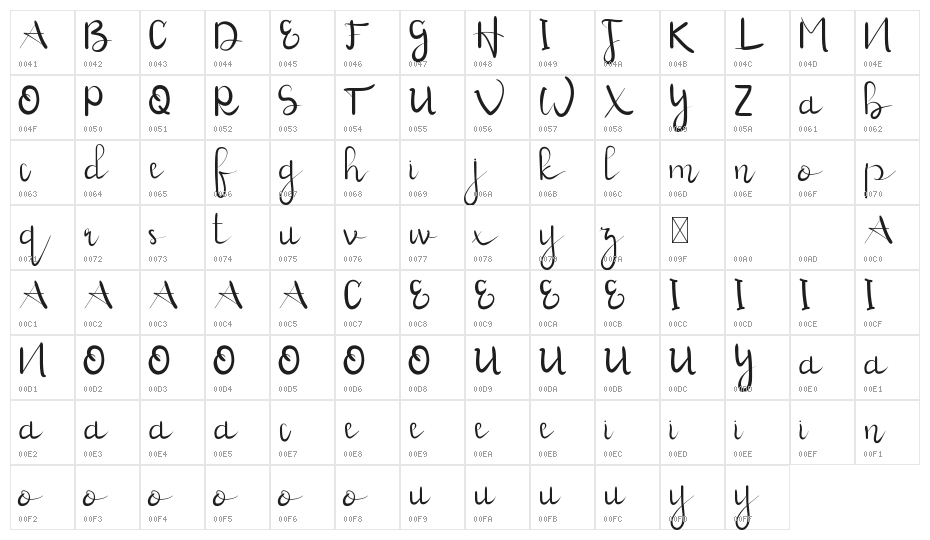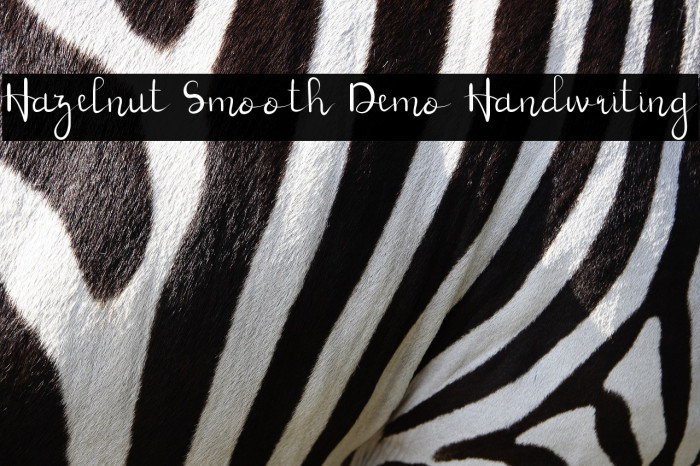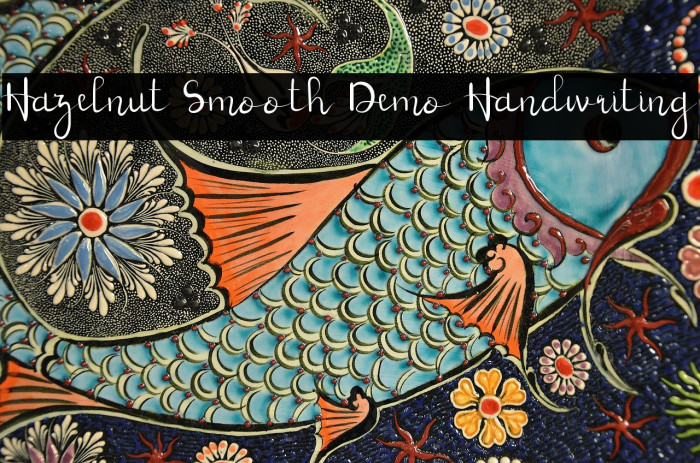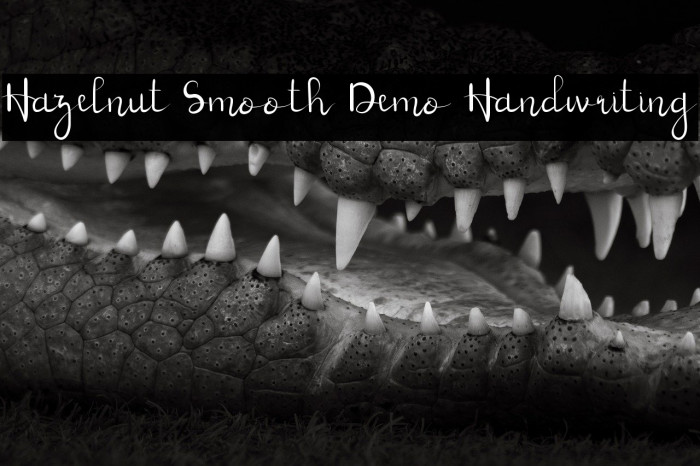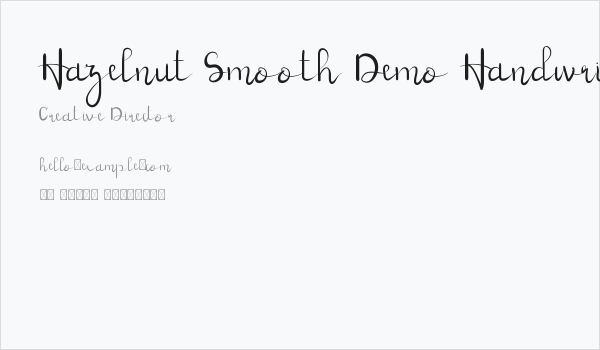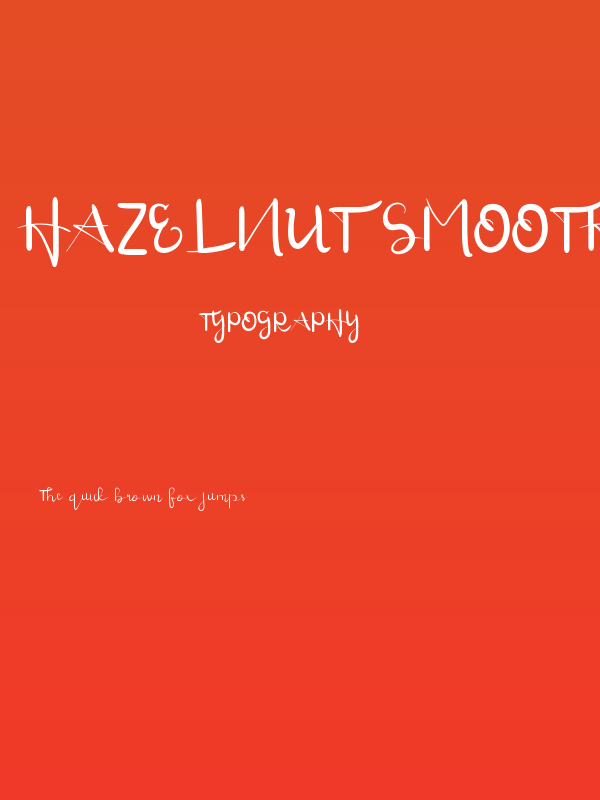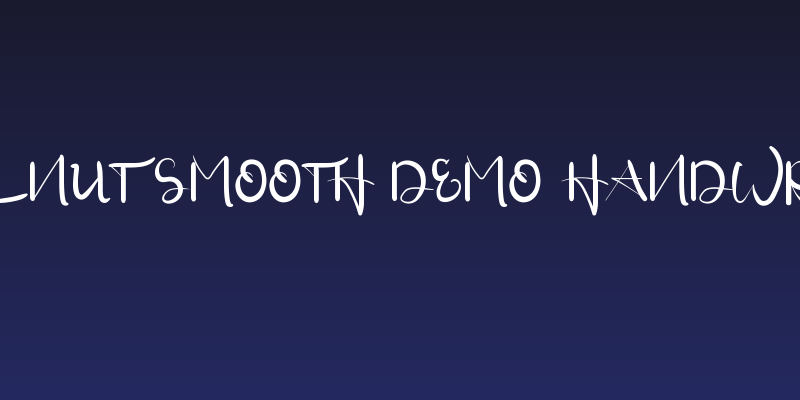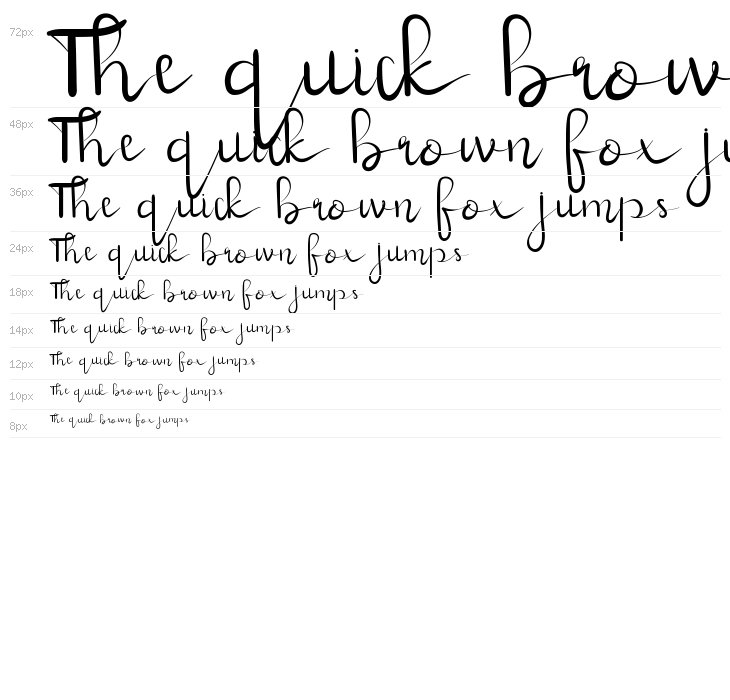
Hazelnut Smooth Demo Handwriting Font
Hazelnut Smooth Demo Handwriting Description
This font exudes a playful and whimsical charm, characterized by its flowing, cursive style that mimics natural handwriting. The letters are crafted with a smooth, continuous stroke that gives it a fluid and dynamic appearance. Each character is uniquely designed with varying heights and loops, adding a personal and informal touch. The uppercase letters are bold and prominent, while the lowercase letters maintain a consistent flow, enhancing readability. The font's overall aesthetic is casual yet elegant, making it suitable for projects that require a personal and approachable feel.
| Overall Style | Casual, Elegant |
| Proposed Projects | Ideal for greeting cards, invitations, personal branding, and creative projects that require a handwritten touch. |